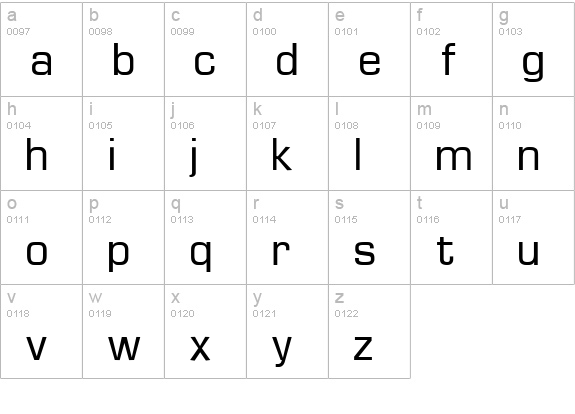
Euro Regular Font Details
Euro Regular is the standard, neutral variant in the Euro typeface family \xE2\x80\x94 well suited to general body text, paragraphs, and standard typographic work.
Euro Regular font is a versatile and modern typeface that is perfect for various design projects. Its clean lines and balanced proportions make it a great choice for both print and digital applications. The Euro Regular font exudes professionalism and sophistication, making it ideal for branding, marketing materials, logos, and more. The best part about the Euro Regular font is that it is completely free to download at FontsMarket.com. This means you can access this high-quality font without any cost, making it a valuable resource for designers, students, and anyone looking to elevate their projects with a sleek and stylish typeface. Don't miss out on the opportunity to enhance your designs with the Euro Regular font, available for free download now!